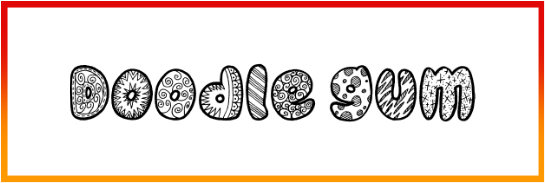
Doodle Gum
Doodle Gum is a fancy font created by Imagex (2015). It's a decorative display font with plenty of personality, made to grab attention. It's a free download, and you can try it with your own text in the preview above first.
What You Can Type With Doodle Gum
Doodle Gum covers the full alphabet in upper and lowercase, plus all ten numbers, so you can set names, dates and prices without switching fonts. Common punctuation such as !, ? and % is included as well. It doesn't include accented letters such as é or ñ, which makes it an English-only font.
Where Doodle Gum Works Best
Doodle Gum is a natural fit for posters, logos and eye-catching headlines. Use it for one standout word or headline and let simpler fonts handle the rest.
Does Doodle Gum support accented letters?
No. Doodle Gum has no accented letters such as é, ñ or ü, so it's best for English text.